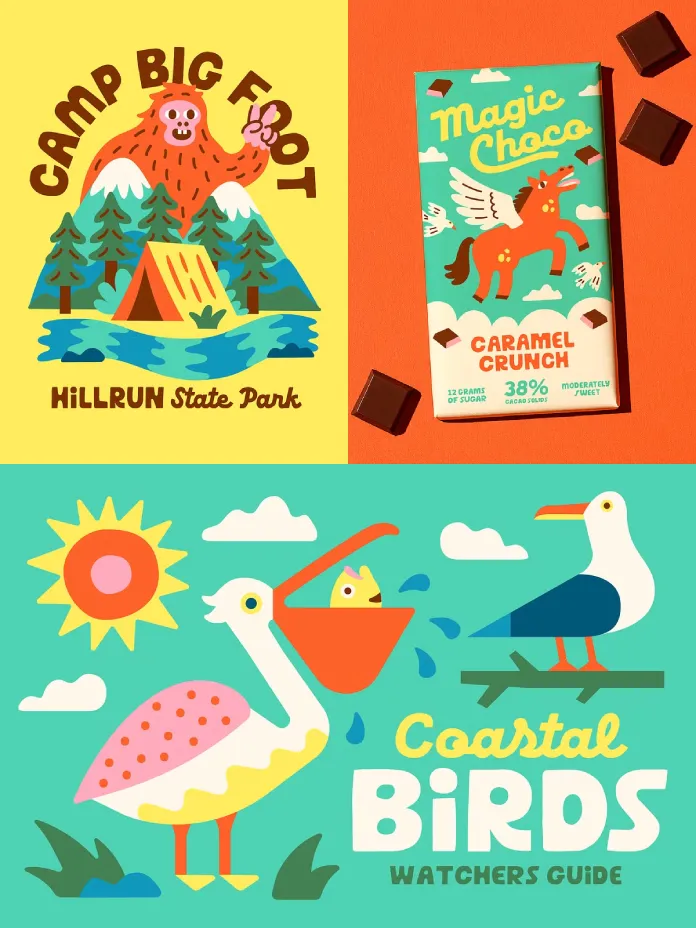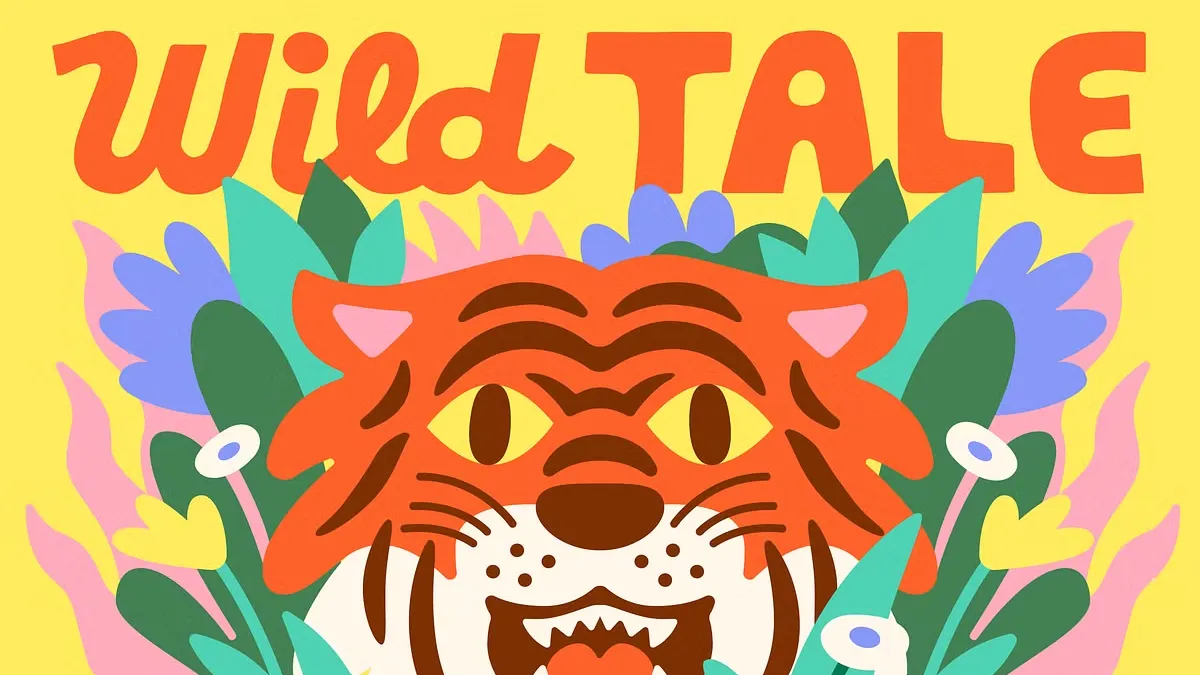
Crafting Authentic Charm in a Digital Age with the Wild Tale Fonts
In a design landscape increasingly focused on authenticity, the Wild Tale font duo by Stable emerges as a compelling solution. This pair of hand-drawn fonts directly answers the growing demand for personality and a human touch in branding. As digital interfaces become more uniform, creative typography offers a way to stand out. The Wild Tale collection provides the tools to inject this much-needed character into any project. It moves beyond sterile perfection, instead celebrating the charm of the imperfect.
Designers and brands are currently navigating a significant trend: the return to bold, playful, and even experimental typography. After years dominated by minimalism, there is a renewed interest in fonts that convey emotion and personality. Hand-drawn styles, in particular, are gaining traction because they feel personal and authentic in a world saturated with digital content. This shift highlights why the Wild Tale font is not just a typeface but a timely and relevant design asset.
Unpacking the Wild Tale Font Duo
The strength of the Wild Tale font duo lies in its thoughtful pairing of two distinct yet complementary styles. It offers a chunky, all-caps sans-serif and a loose, playful script, designed to work in harmony. This combination provides both a strong anchor and a whimsical flourish, making it incredibly versatile for a range of creative applications.
The Playful Script: A Touch of Loose Charm
The script included in the Wild Tale set features both uppercase and lowercase letters, giving it a natural, handwritten feel. Its loose and playful strokes are perfect for adding a personal touch to designs. This style of font is often associated with creativity and elegance, making brands feel more approachable and down-to-earth. Use it for accent words, logos, or any place you want to add a bit of charm.
The Chunky Sans: Bold and Approachable
In contrast to the script, the Wild Tale collection includes a blocky, all-caps sans-serif font. This font comes in two uppercase styles, allowing for creative mixing and matching to establish a clear visual hierarchy. The chunky, stable nature of this sans-serif makes it an excellent choice for headlines and grounding your design. Its clean yet hand-drawn appearance ensures it remains friendly and accessible.
Why Choose Wild Tale for Your Next Project?
Opting for the Wild Tale fonts is about more than just aesthetics; it’s about conveying a specific feeling. These character fonts help forge an emotional connection with an audience, making a brand’s message more memorable. They are particularly well-suited for branding, posters, and packaging design where personality is key to standing out on the shelf.
The hand-drawn quality of the Wild Tale font duo ensures that designs avoid a sterile, corporate look. Instead, they feel warm, inviting, and authentic. This makes the font perfect for brands that want to be perceived as creative, friendly, and trustworthy. What kind of brand identity can Wild Tale help you build? Think of artisanal coffee shops, boutique clothing labels, or any business that prides itself on its unique character.
A Practical Guide to Using the Wild Tale Fonts
Getting the most out of the Wild Tale font duo is straightforward. Its two distinct styles are designed to be used together, creating a balanced and visually interesting composition. Here’s how you can effectively incorporate these creative fonts into your work.
Mastering the Font Pairing
The combination of a script and a sans-serif is a classic typography strategy. For optimal results, use the chunky Wild Tale sans-serif for headlines to grab attention. Then, employ the playful script for subheadings or specific words you want to emphasize. This creates a clear visual hierarchy that guides the reader’s eye through the design. Remember that contrast is key; the clean, simple nature of the sans-serif provides a stable base for the more decorative script.
Expanding Your Toolkit: Glyphs and Extras
Beyond the basic letterforms, the Wild Tale font collection includes numbers, punctuation, and a selection of extra glyphs. These additional elements provide more opportunities for customization and flair. Use these unique glyphs to add a special touch to logos, social media graphics, or packaging details. Consequently, these small additions can significantly elevate the overall design and make it truly one-of-a-kind.